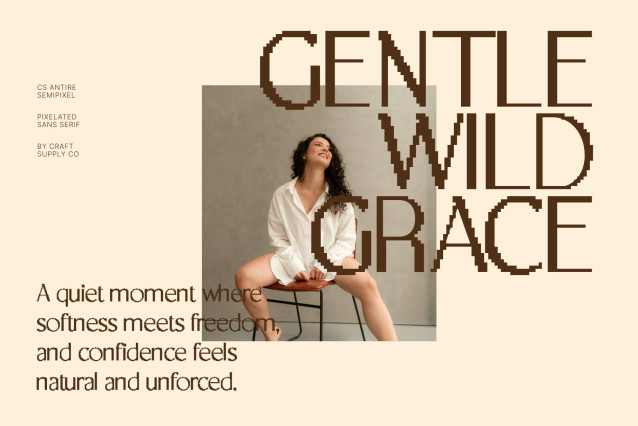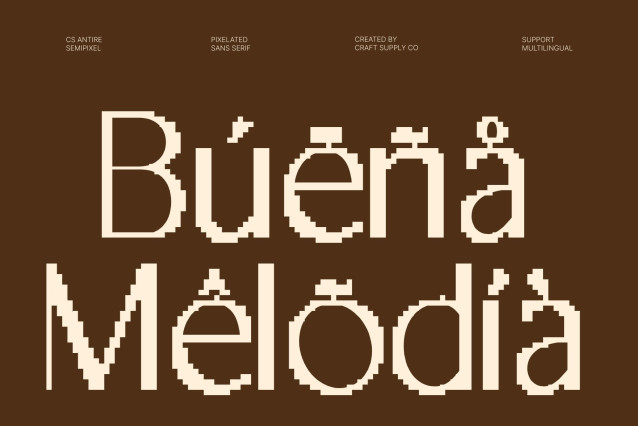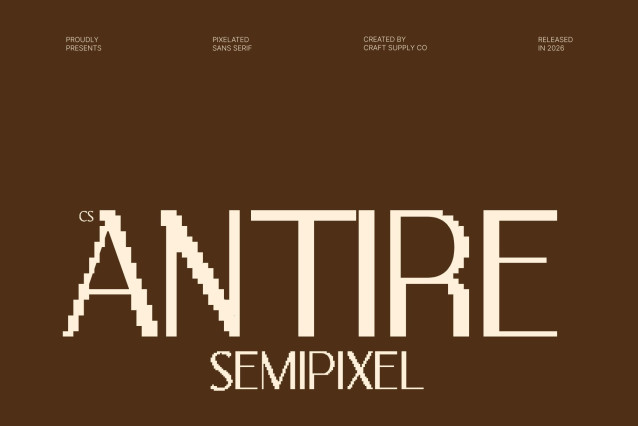
CS Antire Semipixel Font
CS Antire Semipixel – Modern Sans Serif Font: Where Digital Precision Meets Smooth Modern Style
Pixel-Inspired Forms with Smooth Contemporary Curves
This is a modern sans serif font that combines pixel-inspired square structures with smooth curves and refined contemporary details. Unlike traditional rigid pixel fonts, its semi-pixel construction creates a cleaner and more fluid appearance, balancing digital aesthetics with modern readability. The result is a typeface that feels futuristic, stylish, and approachable.
Minimalist Design with High-Tech Character
Blending geometric precision with modern simplicity, this font delivers a minimalist visual identity that feels professional and innovative. Its structured forms evoke a technological atmosphere while maintaining a sleek and polished rhythm, making the font ideal for projects that seek a clean and modern high-tech aesthetic.